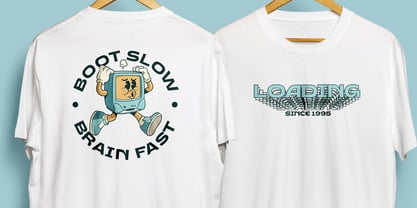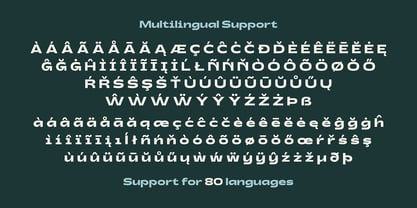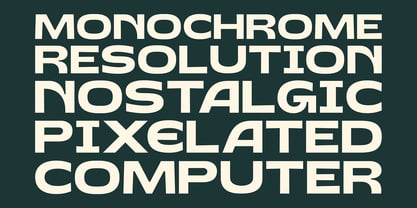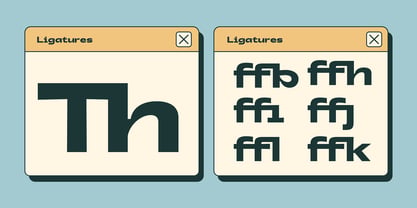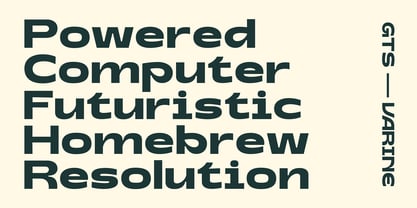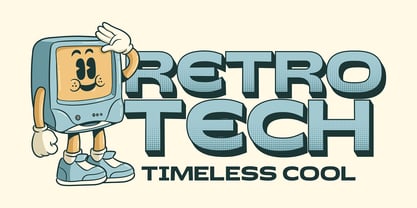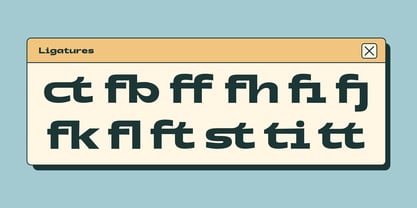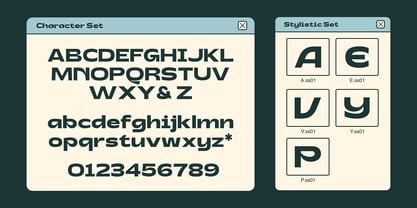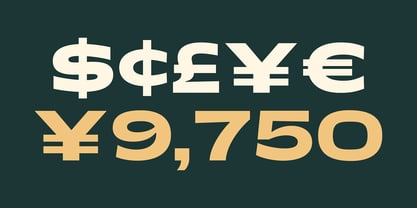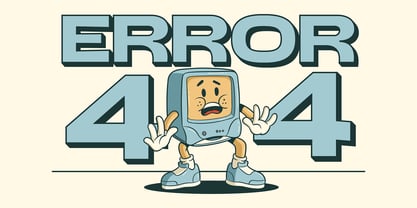
Gts Varine
by Graptail
The Gts Varine Font Family was designed by Teuku Deky Firnanda and published by Graptail. Gts Varine contains 2 styles and family package options. More about this family
Gts Varine is a bold, wide display font characterized by strong, confident letterforms that command immediate attention. Its expansive proportions provide a powerful visual impact, making it perfect for designs that require clarity and decisiveness. This font features 5 stylistic options and 19 ligature combinations, enabling the creation of expressive, flexible, and refined typographic compositions. Gts Varine is available in both regular and italic styles, offering enhanced freedom to emphasize motion, contrast, and hierarchy in your layouts. With its blend of strength, width, and advanced typographic features, Gts Varine serves as a versatile display font that makes a bold, modern statement across print and digital media.